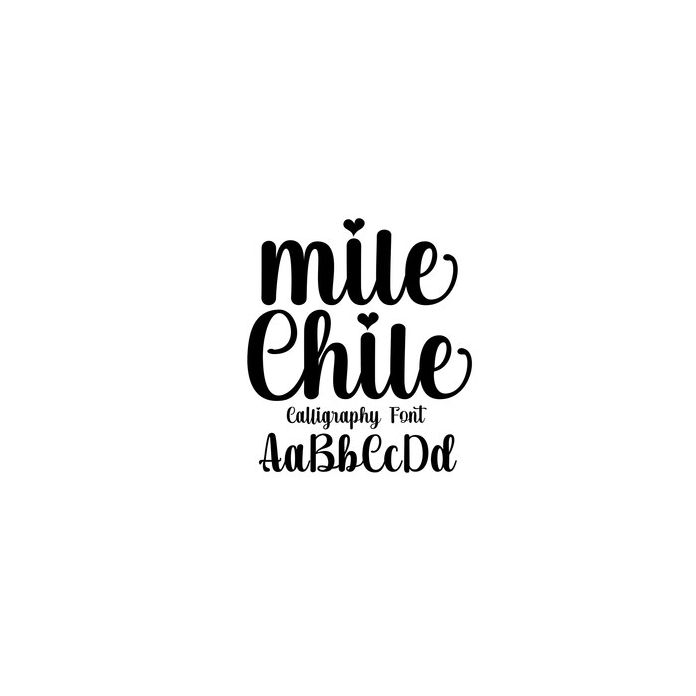
Mile Chile Script This handwriting is in cursive form with a bold font that is firm and easy to read, specifically designed for your design needs with the latest characters, of course very attractive for today's market, because the shape of this script font is unique and special. characters that you can combine in your designs. Now go ahead and use it for New Year's celebration projects, products, crafts, invitations, and personalization. Includes alphabet, numbers, and punctuation.